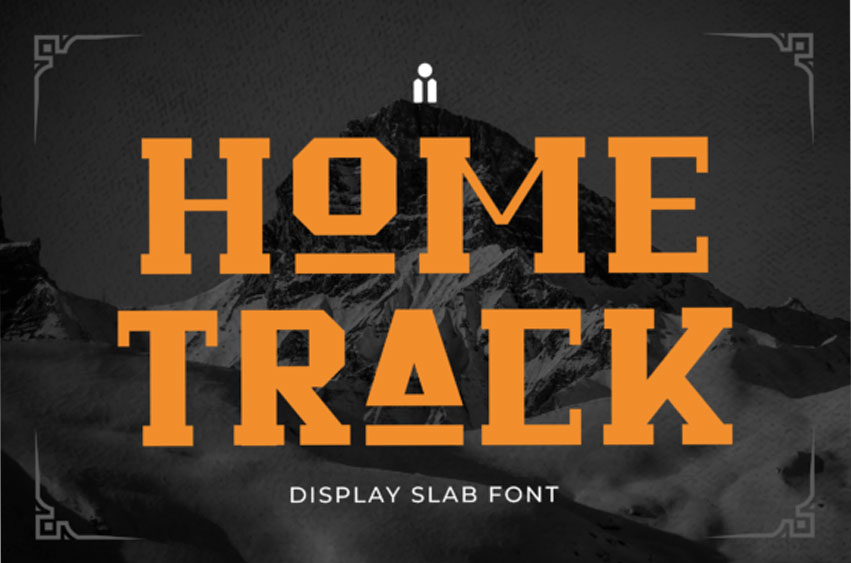
Home Track Font is a display slab font. More explores the basic slab font specialty, the uppercase mix with a vintage adventure style, and makes a unique alternate line.
It will make your design strong, bold, and stand out. With playful lines, this font is perfect for headlines, poster films, banner products, websites, logo labels, or any type of advertising purpose.